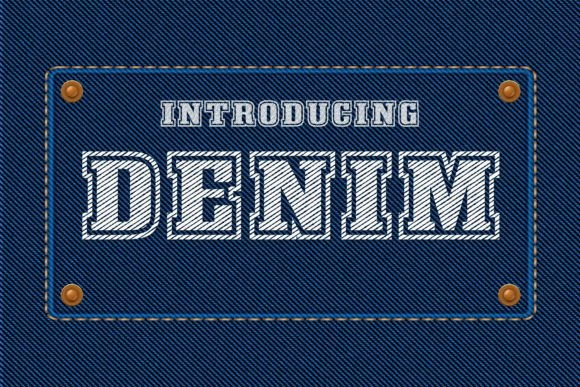
Denim Font: The Ultimate Guide to Adding a Cool Touch to Your Designs
Are you looking for a font that can add a fun and cool touch to your designs? Look no further than the Denim Font. This decorative font is designed to give the feel of denim, making it perfect for a wide range of projects, from blog posts and logos to invitations and photo albums. In this article, we’ll take a closer look at the Denim Font, its features, and how you can use it to enhance your creations.
What is Denim Font?
Denim Font is a decorative font designed to mimic the look and feel of denim. It’s a unique and stylish font that can add a cool touch to any design. The font is perfect for designers, bloggers, and anyone looking to add a personal touch to their creations. With its fun and playful design, Denim Font is sure to make your projects stand out.
Features of Denim Font
Denim Font has several features that make it a great addition to any font library. Some of its key features include:
- Unique Design: Denim Font has a unique design that sets it apart from other fonts. Its denim-like texture and stylish letters make it perfect for adding a cool touch to your designs.
- Versatility: Denim Font is versatile and can be used for a wide range of projects, from blog posts and logos to invitations and photo albums.
- High-Quality: Denim Font is a high-quality font that is designed to produce clear and crisp text.
Uses of Denim Font
Denim Font is a versatile font that can be used for a wide range of projects. Some of the most popular uses of Denim Font include:
- Blog Posts: Denim Font is perfect for blog posts, especially those that require a fun and cool touch.
- Logos and Branding: Denim Font can be used to create unique and stylish logos and branding materials.
- Invitations and Greeting Cards: Denim Font is perfect for creating fun and playful invitations and greeting cards.
- Photo Albums and Decorations: Denim Font can be used to add a personal touch to photo albums and decorations.
- Ads and Marketing Materials: Denim Font can be used to create eye-catching ads and marketing materials.
Benefits of Using Denim Font
There are several benefits to using Denim Font in your designs. Some of the most significant benefits include:
- Unique Look: Denim Font gives your designs a unique and stylish look that sets them apart from others.
- Fun and Playful: Denim Font adds a fun and playful touch to your designs, making them more engaging and appealing.
- Versatility: Denim Font is versatile and can be used for a wide range of projects.
Tips and Tricks for Using Denim Font
Here are some tips and tricks for using Denim Font:
- Use it Sparingly: Use Denim Font sparingly to avoid overwhelming your design.
- Pair it with Other Fonts: Pair Denim Font with other fonts to create a unique and stylish look.
- Experiment with Colors: Experiment with different colors to find the perfect match for your design.
- Use it for Headings: Use Denim Font for headings and titles to add a fun and playful touch.
Denim Font is a unique and stylish font that can add a cool touch to your designs. With its fun and playful design, Denim Font is perfect for a wide range of projects, from blog posts and logos to invitations and photo albums. Its versatility, ease of use, and high-quality design make it a great addition to any font library. By following the tips and tricks outlined in this article, you can use Denim Font to create stunning designs that stand out from the crowd.